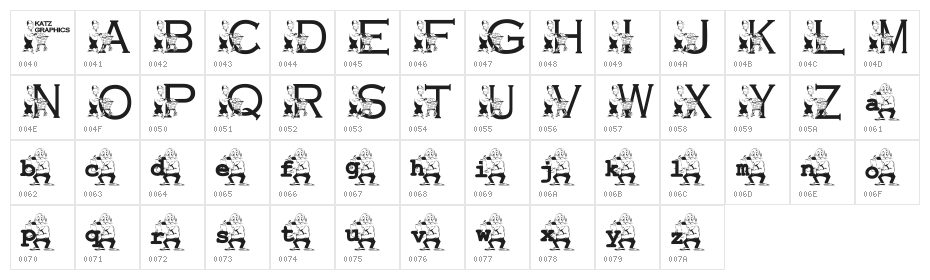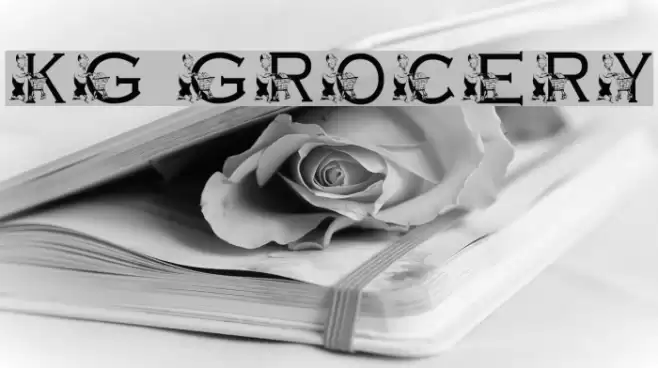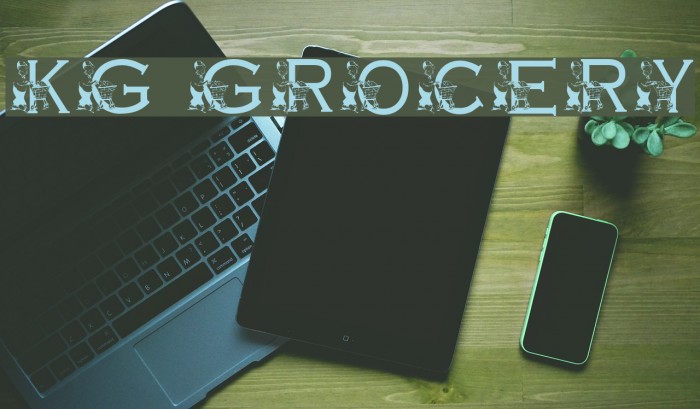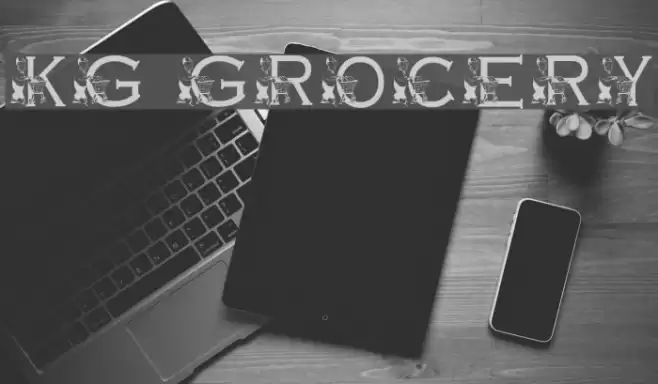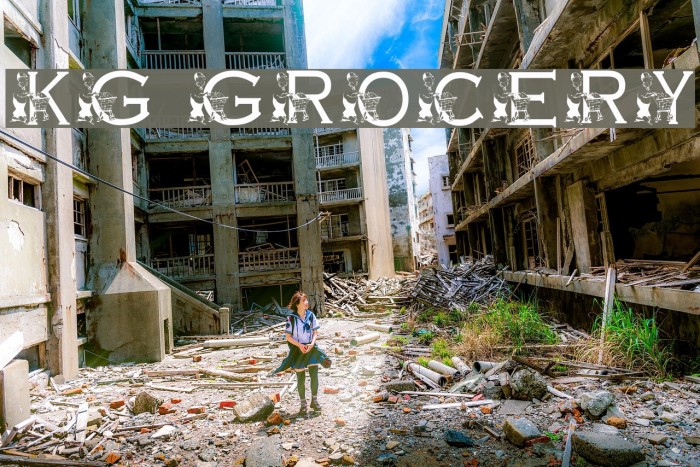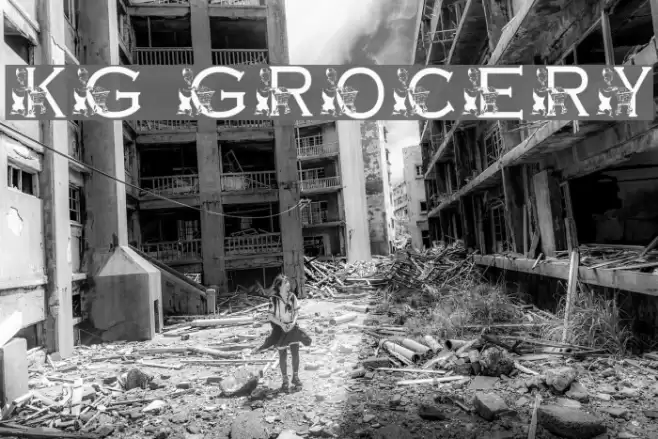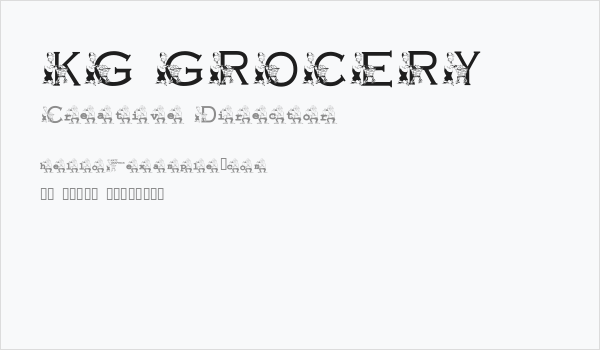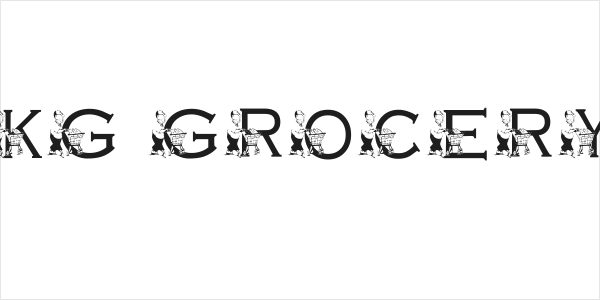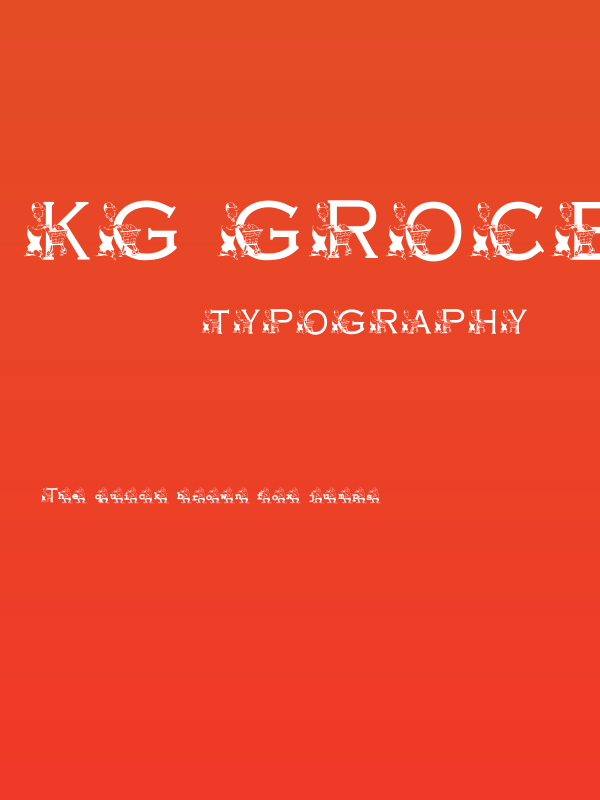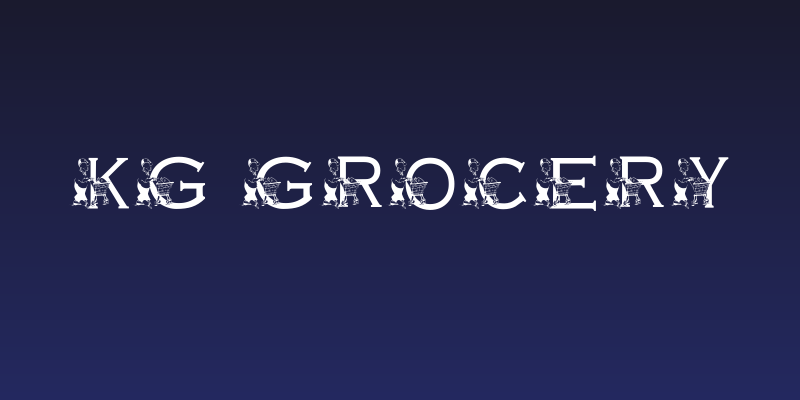
KG GROCERY Font
KG GROCERY Description
This decorative font features a playful and whimsical design, incorporating cartoon-like characters within each letter. The uppercase and lowercase letters are filled with detailed illustrations, adding a unique and artistic flair. The font is visually striking, making it ideal for projects that require a fun and engaging aesthetic. Its intricate design may not be suitable for small text but works well in larger formats where the details can be appreciated.
| Proposed Projects | Ideal for children's book covers, playful posters, party invitations, and creative branding projects. |